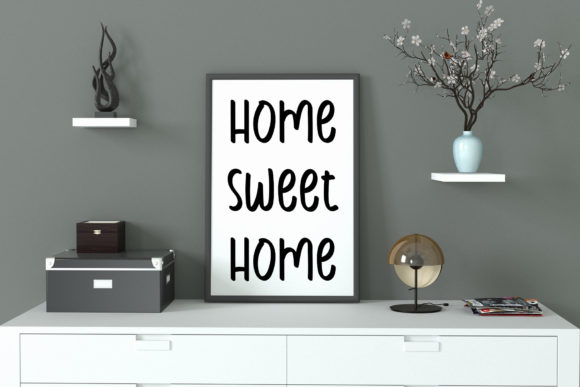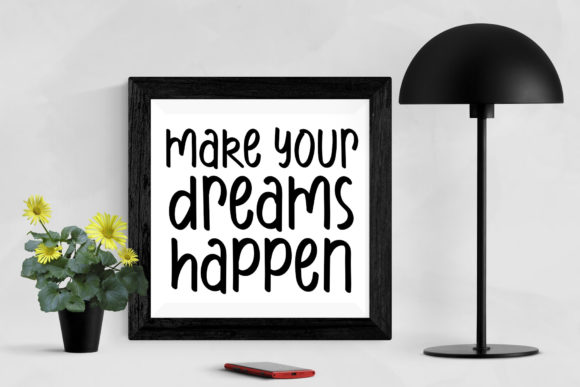
Special Baby Doll Font
db-ku.com - Script & Handwritten -- Special Baby Doll is a fun and quirky handwritten font. With its slightly uneven characters and a really nice friendly vibe, this typeface is a great choice for your most creative projects that need a unique touch!